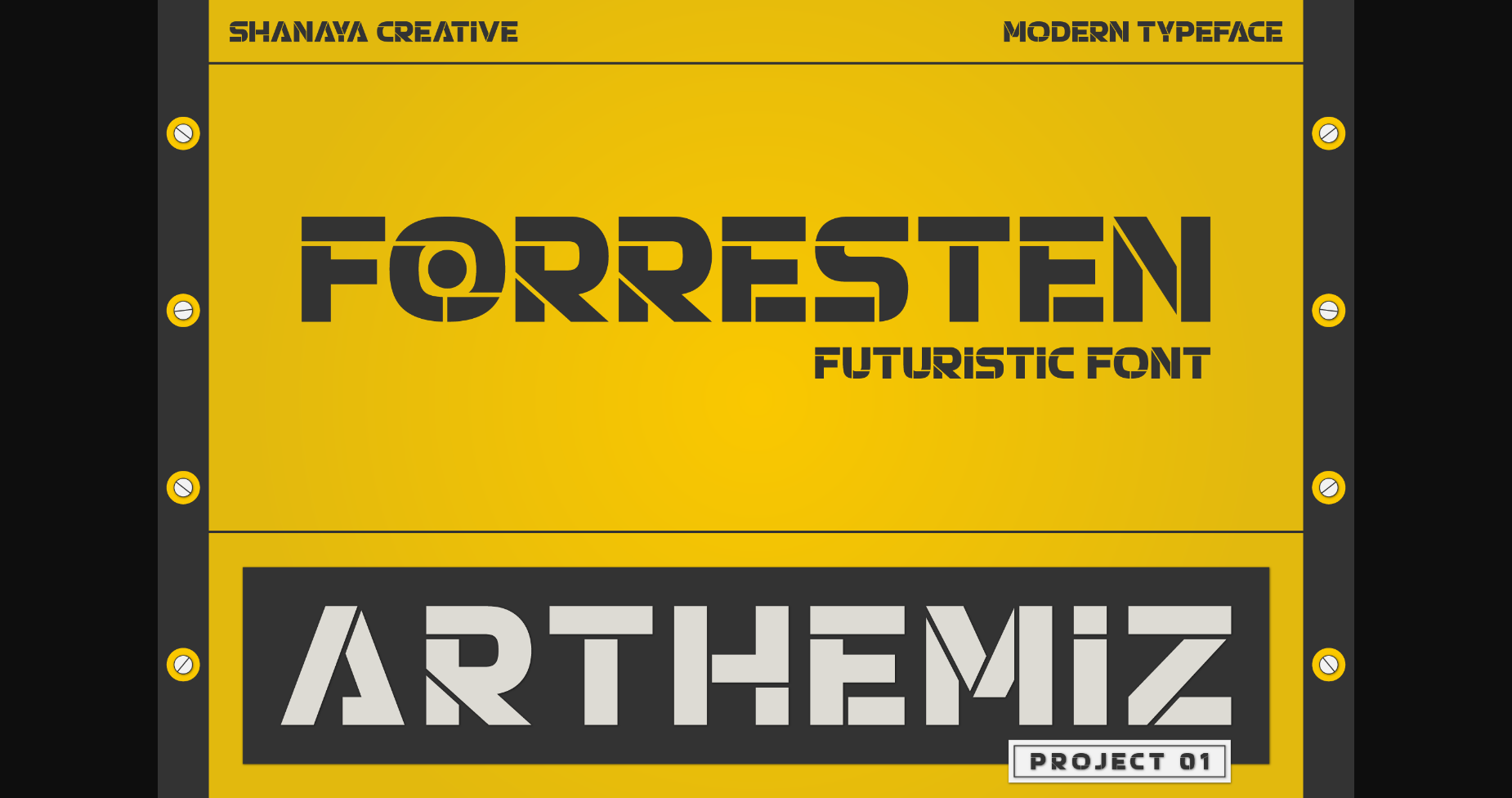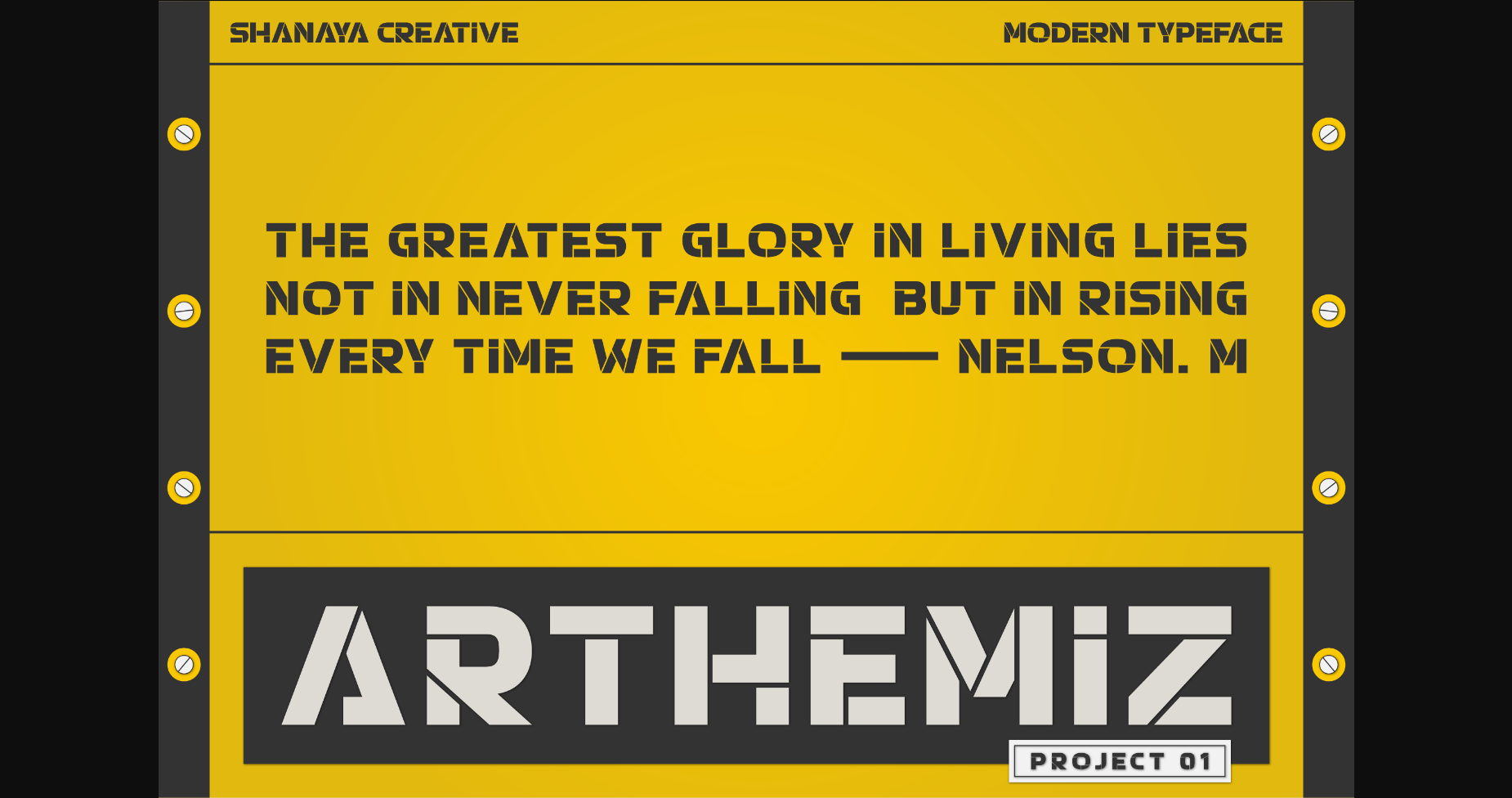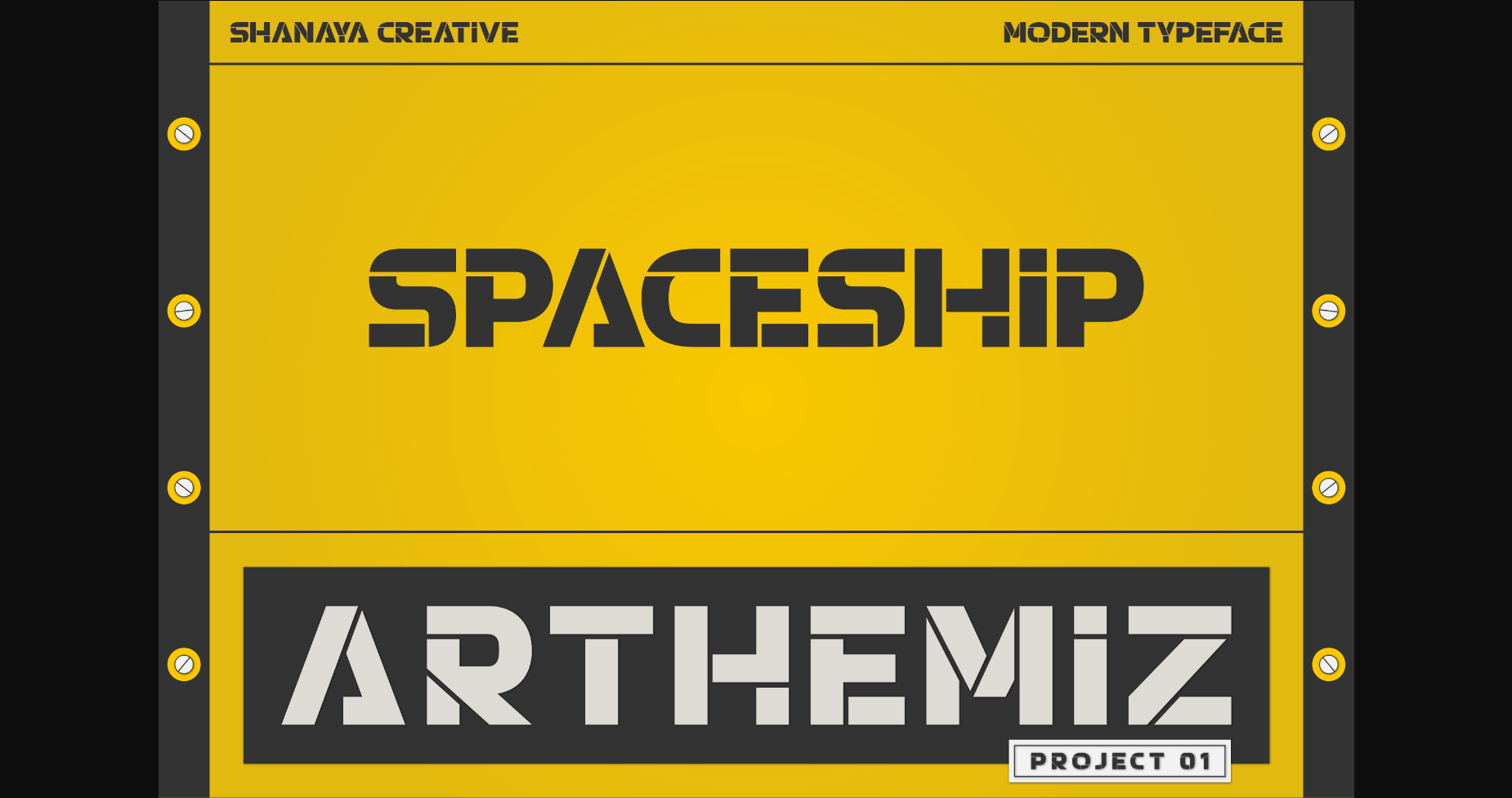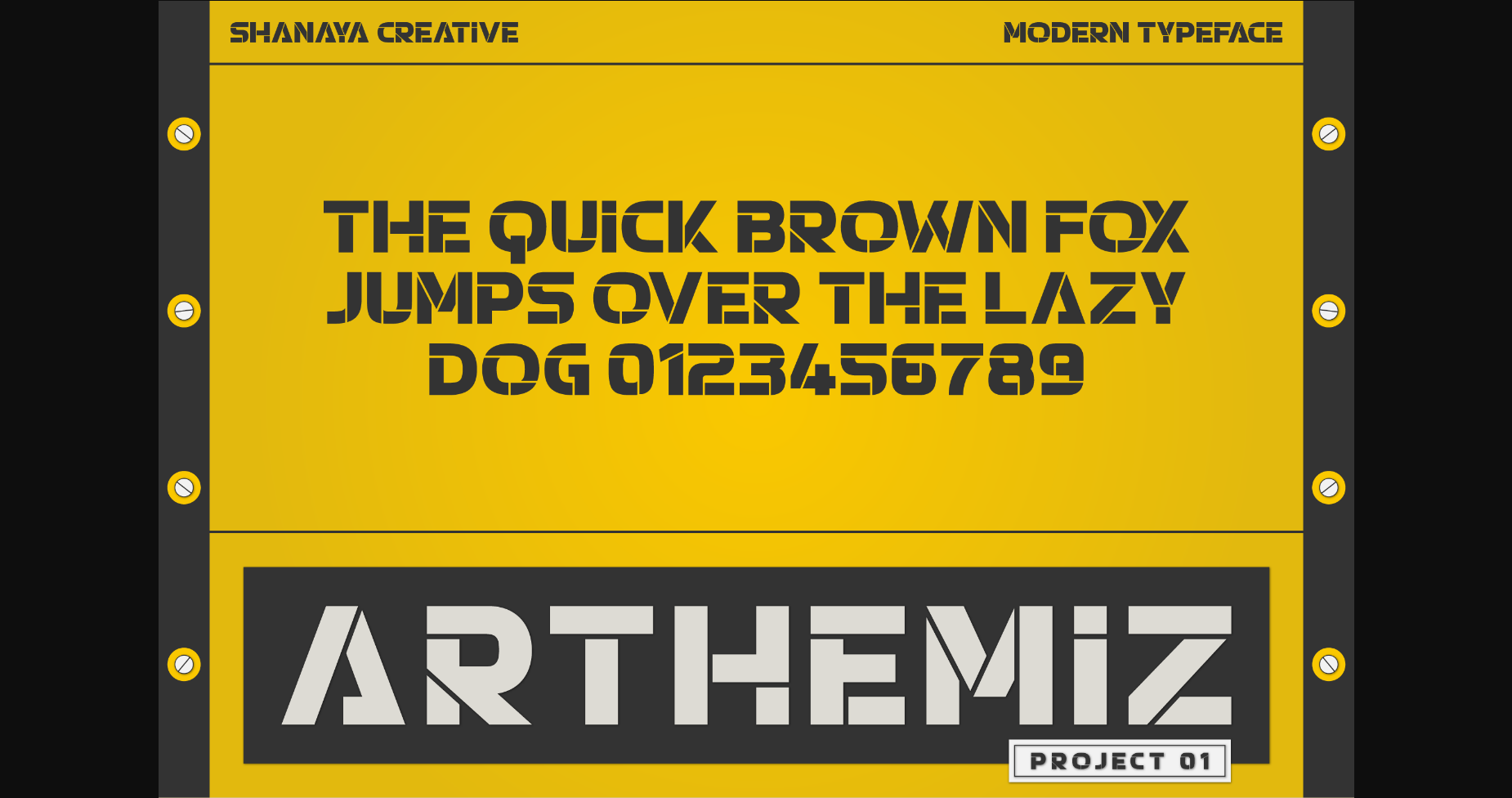
Forresten Font
About Forresten Font
Forresten is the font of the future. Its clean lines and sharp edges make it perfect for modern and futuristic designs. With its bold and attention-grabbing style, this sans-serif font is the perfect choice for brands looking to make a statement and stand out from the crowd.